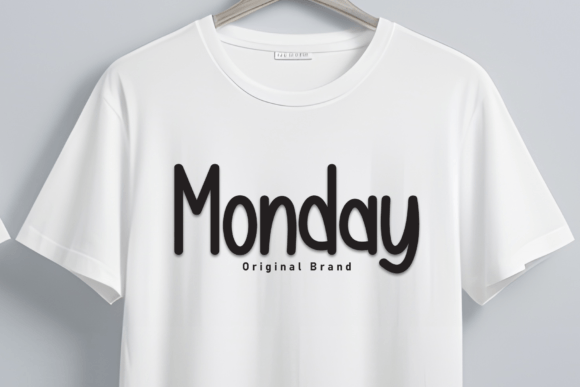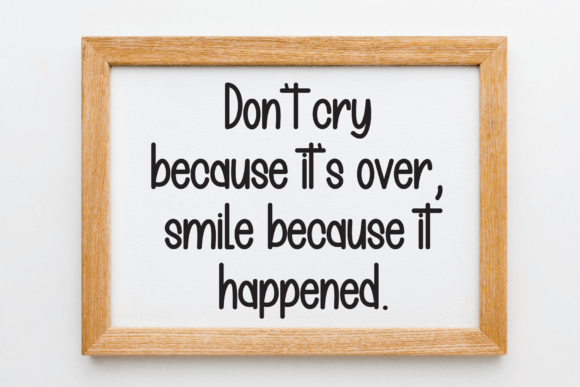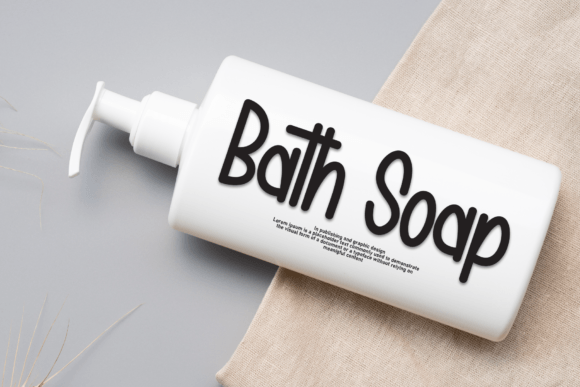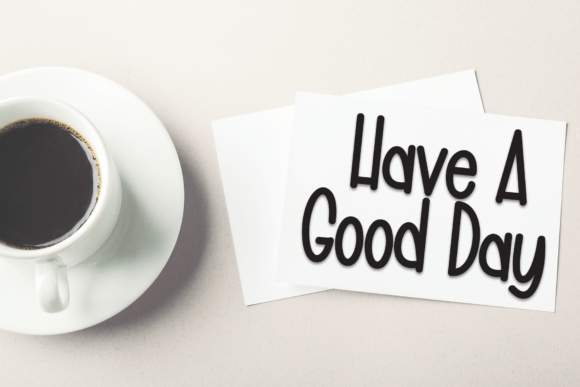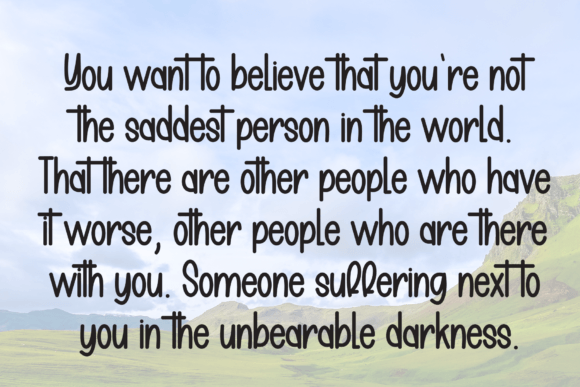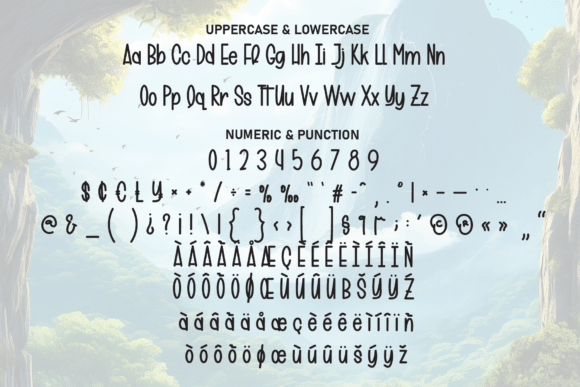
Introduction to Hello Jungle Font
Hello Jungle is a casual handwritten font that captures a relaxed and friendly vibe with its natural, flowing strokes.
Ideal for personal projects, social media, and invitations, it brings an effortless, charming touch to any design The fontโs easygoing style adds warmth and authenticity.
Key Features of Hello Jungle Font